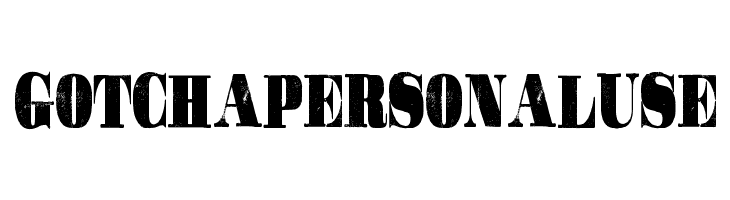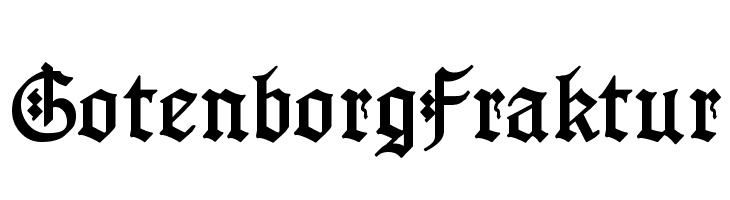
• GOTCHA PERSONAL USE Fuentes
( Billy Argel - billyargel.com/ )
A bold, distressed font with a vintage, rugged aesthetic.
• GotenborgFraktur Fuentes
( Fonts by Manfred Klein - manfred-klein.ina-mar.com )
A traditional Blackletter font with ornate, angular letterforms.
• Gotenburg A Bold Fuentes
( Fonts by Dieter Steffmann )
A bold, blackletter font with intricate, angular designs ideal for dramatic and historical themes.
• Gotenburg B Bold Fuentes
( Fonts by Dieter Steffmann )
A bold Blackletter font with dramatic strokes and intricate detailing.
• Gotenburg B UNZ_1_L Bold Fuentes
A bold, blackletter font with sharp, angular lines and a historical Gothic style.
• Gotenburg B UNZ_1_L Bold Italic Fuentes
A bold, italic Blackletter font with sharp, angular strokes and a gothic aesthetic.
• GotenburgA-Bold Fuentes
( Fonts by Dieter Steffmann )
A bold, blackletter font with gothic, angular strokes and intricate detailing.
• GotenburgB-Bold Fuentes
( Fonts by Dieter Steffmann )
A bold blackletter font with sharp, angular lines and a modern edge.
• Goteru FREE Fuentes
A bold, dynamic script font with a playful, handwritten style.
• GoteruFREE Fuentes
A bold, dynamic script font with interconnected letters and a playful style.